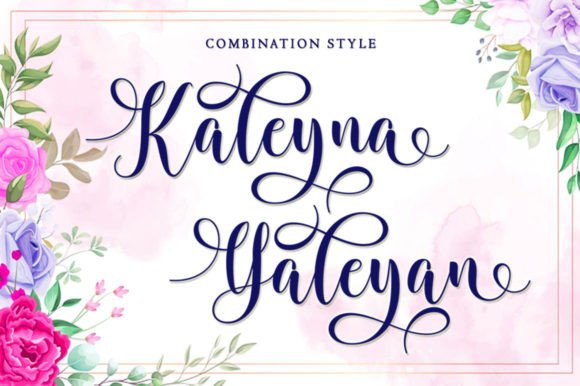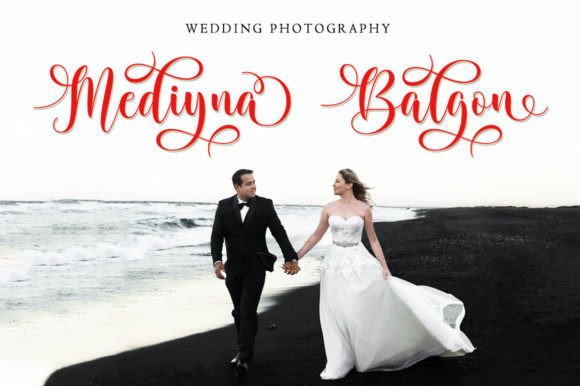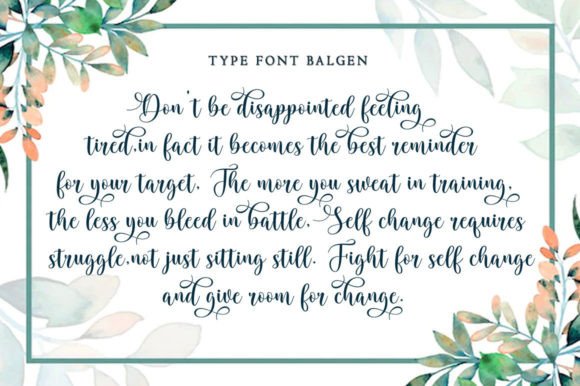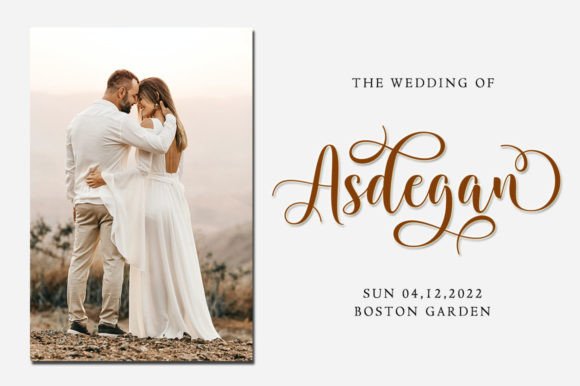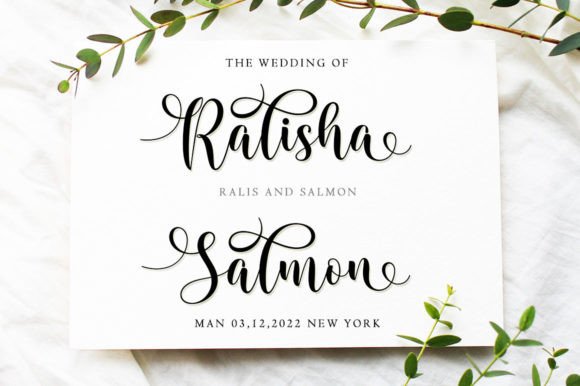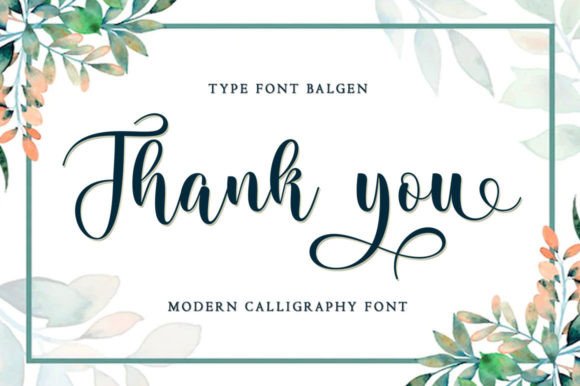
Introducing Balgen Font: The Epitome of Elegance and Sophistication
In the realm of typography, few fonts manage to strike a balance between classic charm and modern flair. Balgen Font, however, is an exception. This modern script font is a masterpiece of design, boasting a beautiful character set that exudes elegance, sophistication, and a touch of playfulness. With its intricate details and luxurious letter connections, Balgen is an excellent choice for designers and crafters seeking to add a dash of glamour to their projects.
The Classic Copper Decorative Script with a Modern Twist
Balgen Font is deeply rooted in the classic copper decorative script type, yet it has been infused with a modern touch that sets it apart from its traditional counterparts. The font’s design is characterized by high levels of detail, which lends it an air of refinement and poise. Each letter is meticulously crafted to ensure that the font is not only aesthetically pleasing but also clean and easy to read.
Key Features of Balgen Font
- Elegant and Cute Style: Balgen’s design is a perfect blend of elegance and cuteness, making it suitable for a wide range of applications, from formal invitations to playful branding.
- Clean and Readable: Despite its ornate details, Balgen remains clean and highly readable, ensuring that your message is conveyed with clarity and impact.
- Feminine and Sensual: The font’s curves and lines evoke a sense of femininity and sensuality, making it an excellent choice for brands and projects targeting a female audience or those seeking to convey a sense of luxury.
- Glamorous and Luxurious: With its classic script style and modern enhancements, Balgen embodies glamour and luxury, perfect for high-end branding, advertising, and marketing materials.
- Versatile: Balgen’s versatility is one of its standout features. It can be used in a variety of contexts, including invitations, labels, restaurant menus, logos, fashion and makeup branding, stationery, novels, magazines, books, greeting cards, packaging, and advertisements.
Applications of Balgen Font
The versatility of Balgen Font makes it an invaluable asset for designers and crafters across various industries. Here are some of the many ways Balgen can be utilized:
- Invitations and Greeting Cards: Add a touch of elegance to wedding invitations, birthday cards, and other personal greetings.
- Branding and Logos: Create a lasting impression with a luxurious and modern logo that stands out.
- Menus and Packaging: Elevate the dining experience with elegant restaurant menus or make your product packaging more appealing and sophisticated.
- Fashion and Beauty: Perfect for fashion labels, beauty blogs, makeup artists, and hairstylists looking to convey a sense of style and glamour.
- Publishing: Enhance the cover and interior of novels, magazines, and books with a font that exudes class and sophistication.
Why Choose Balgen Font?
In a world where typography plays a crucial role in communication and branding, Balgen Font stands out as a beacon of elegance and modernity. Its unique blend of classic script elements and contemporary design makes it an exceptional choice for anyone looking to add a touch of sophistication and glamour to their projects. Whether you’re a designer, a crafter, or a business owner, Balgen offers the perfect combination of beauty, readability, and versatility.
Balgen Font is more than just a typeface; it’s a statement of elegance, a dash of glamour, and a pinch of modern flair. Its design, characterized by luxurious letter connections and a classic copper decorative script style with a modern twist, makes it an invaluable asset for a wide range of applications. Whether you’re crafting an invitation, designing a logo, or publishing a book, Balgen is sure to leave a lasting impression. Embrace the beauty and sophistication of Balgen Font in your next project and experience the difference that high-quality typography can make.